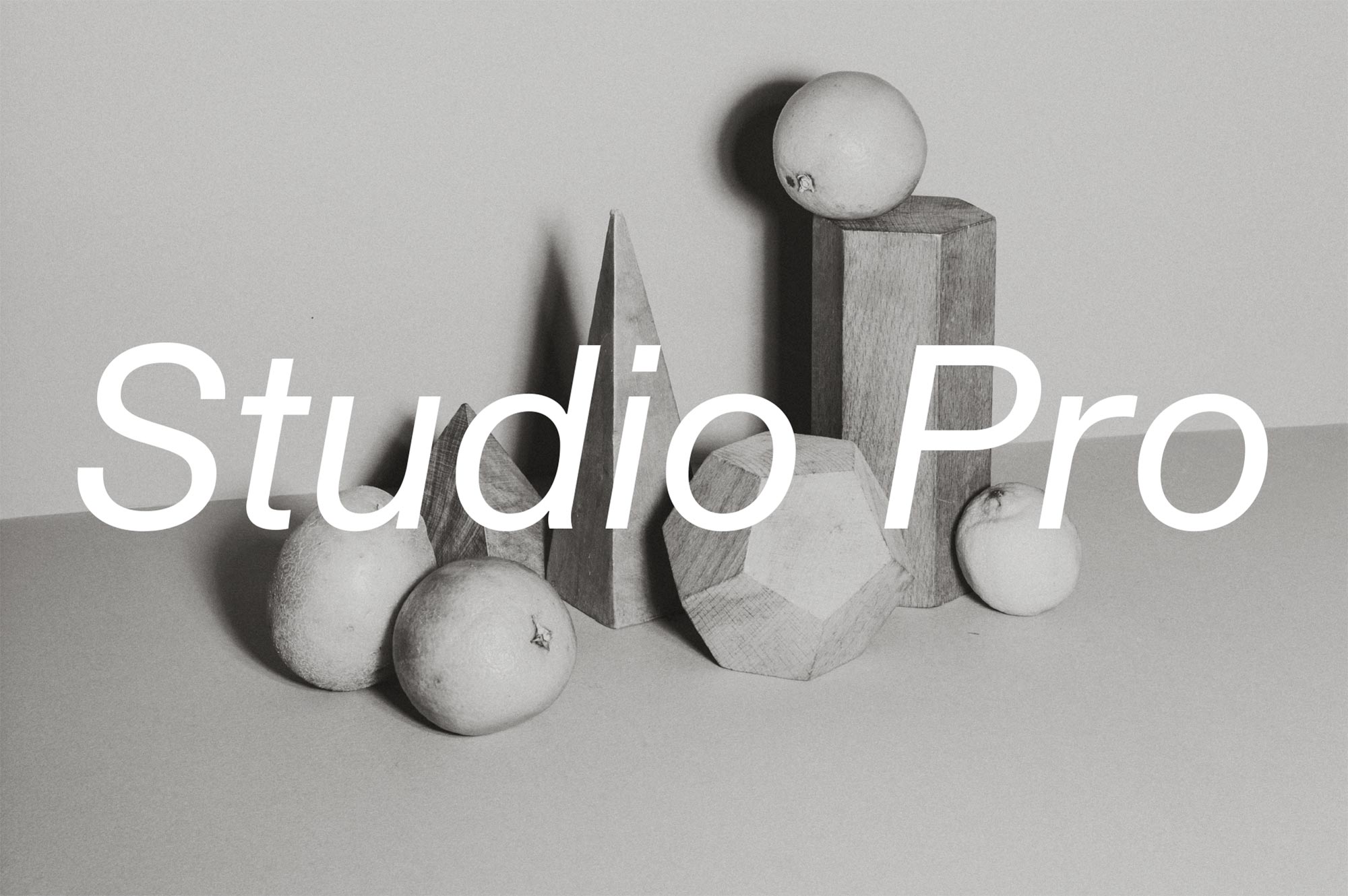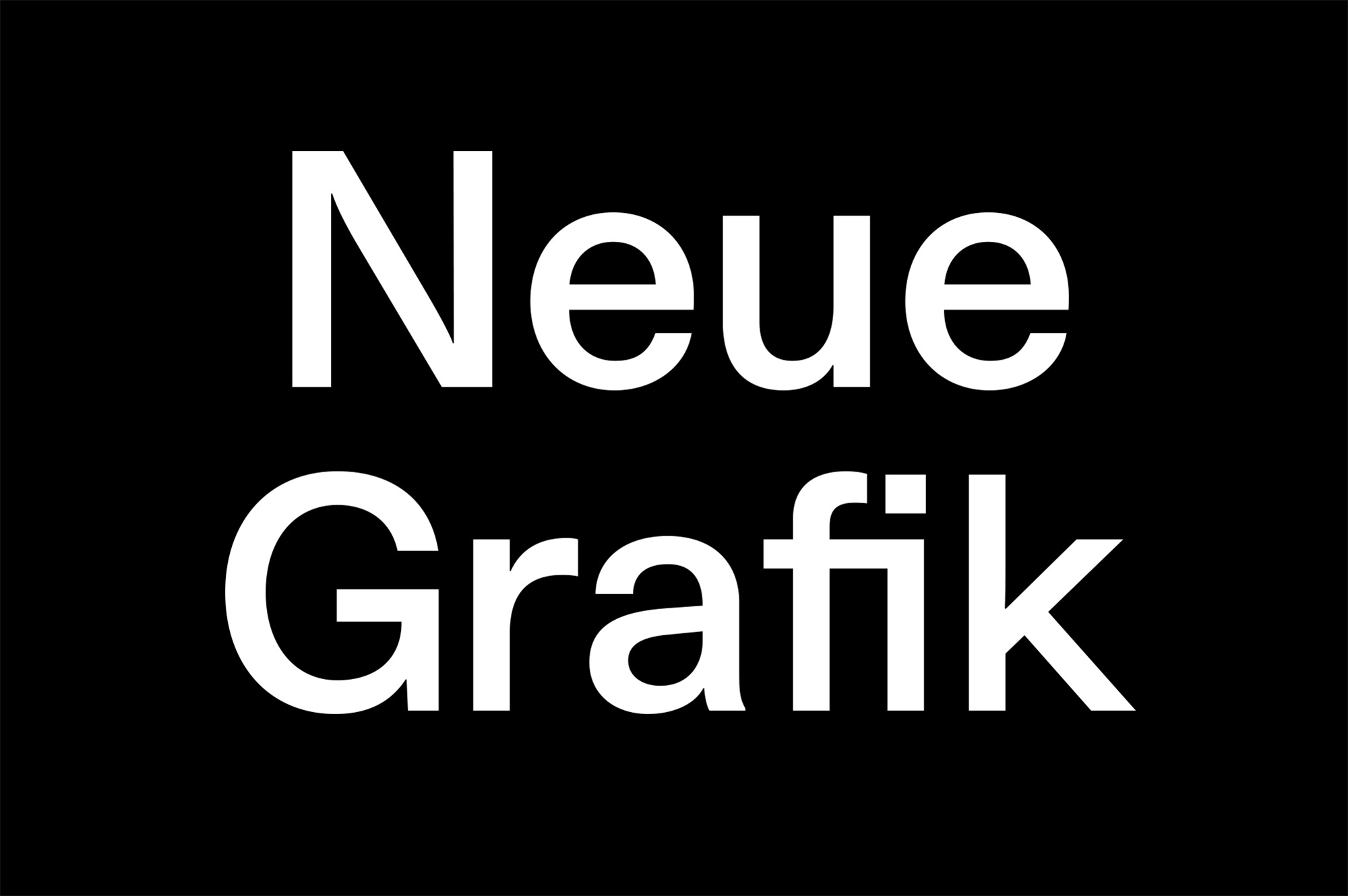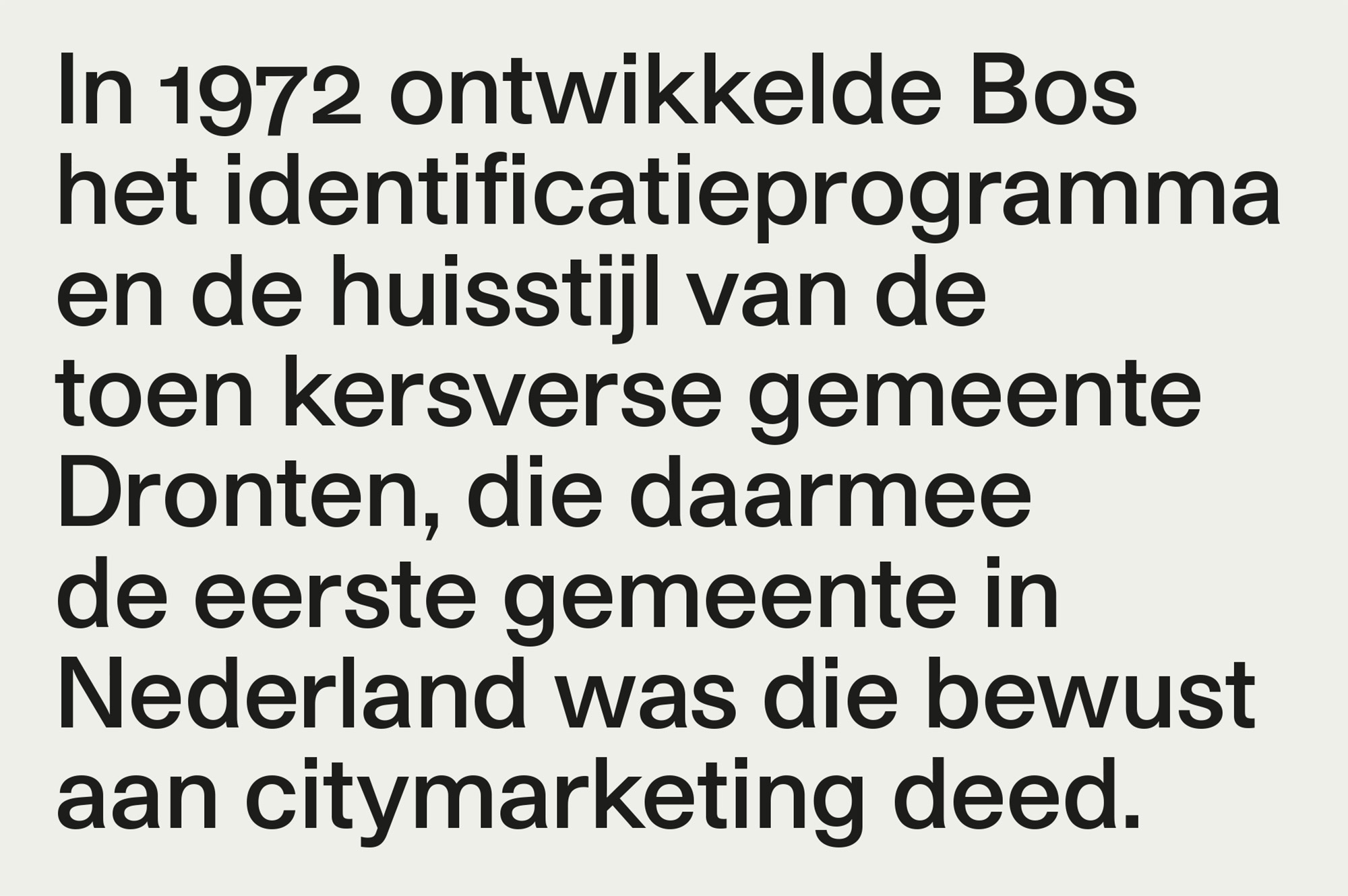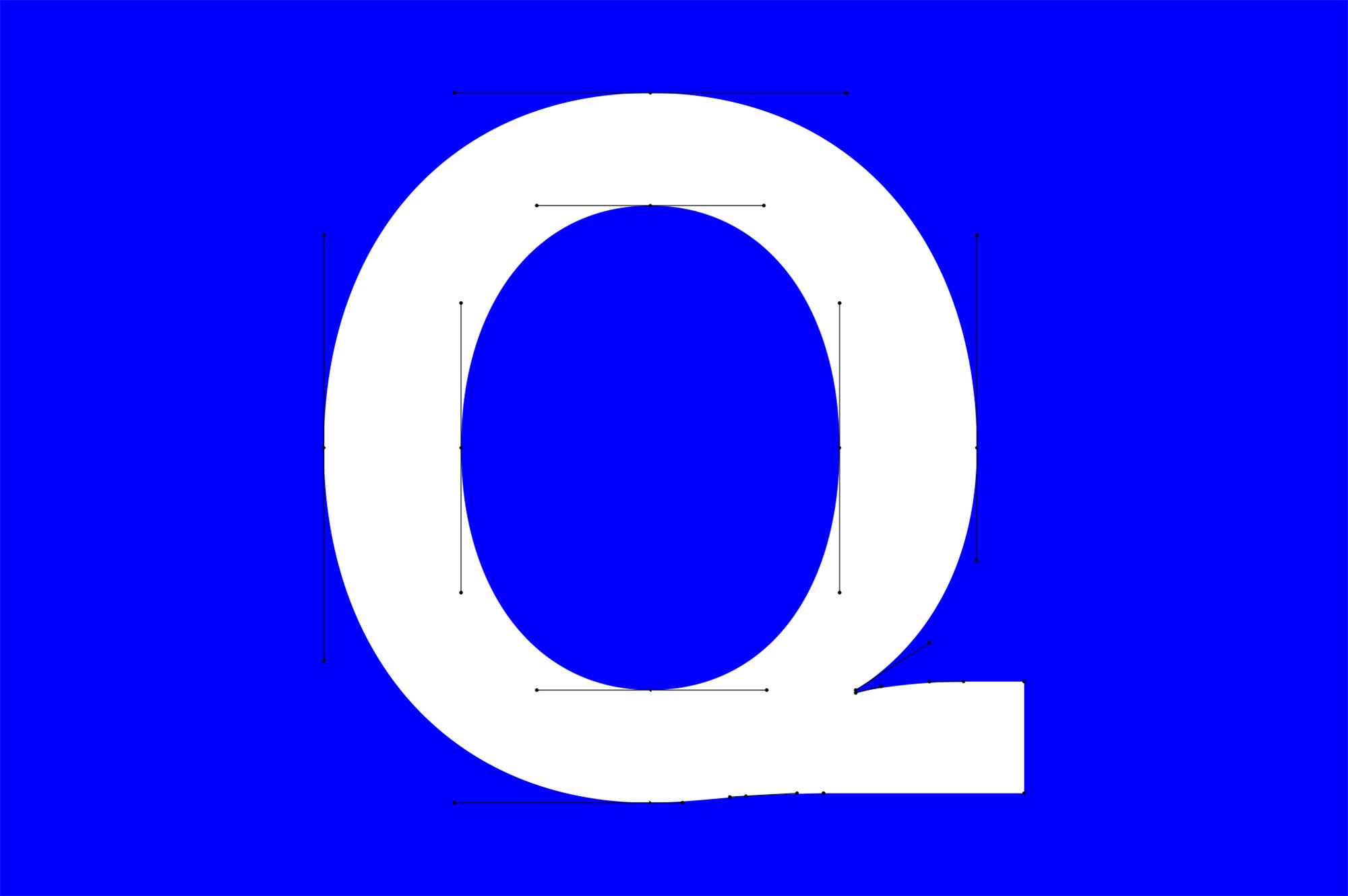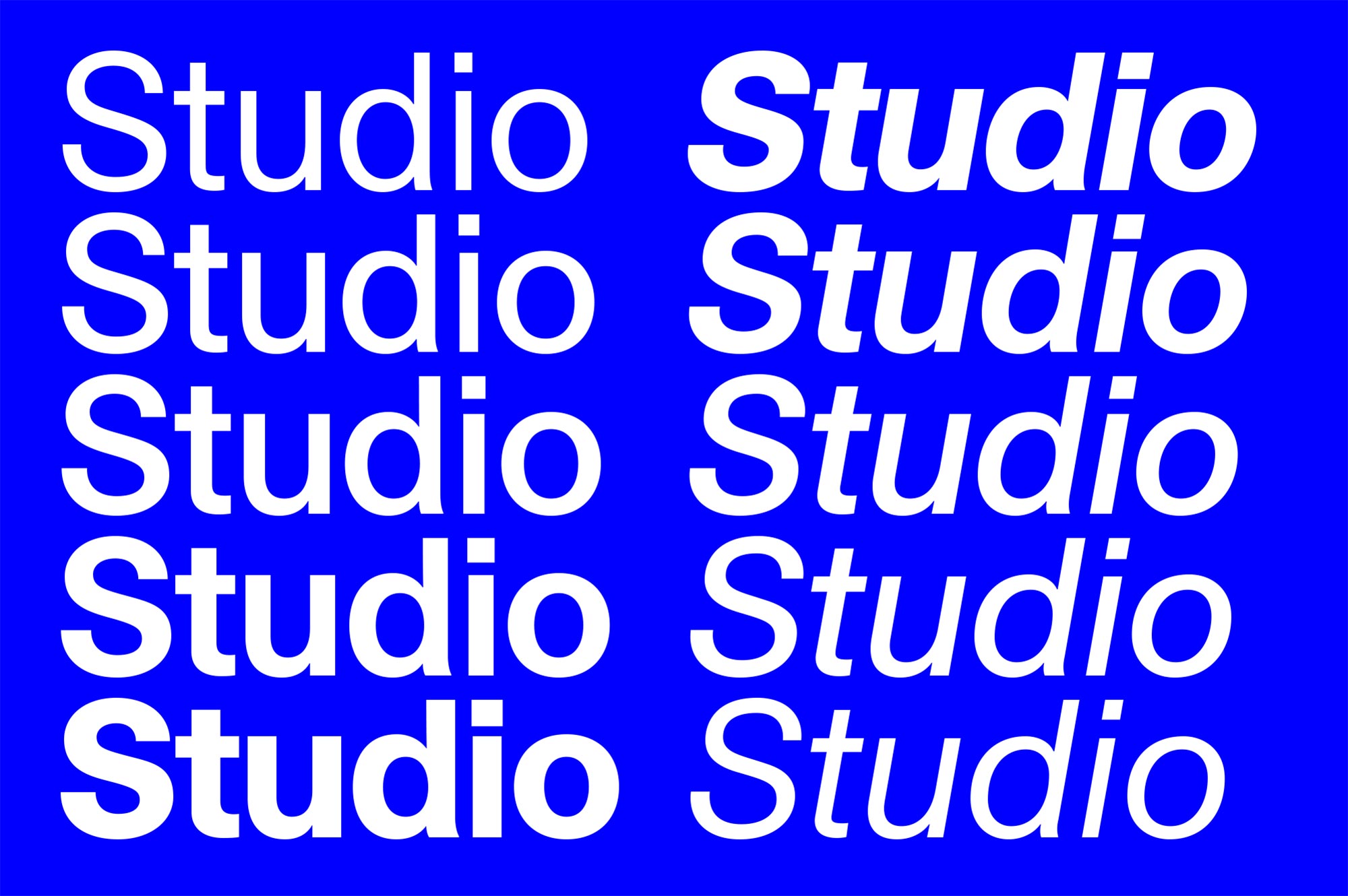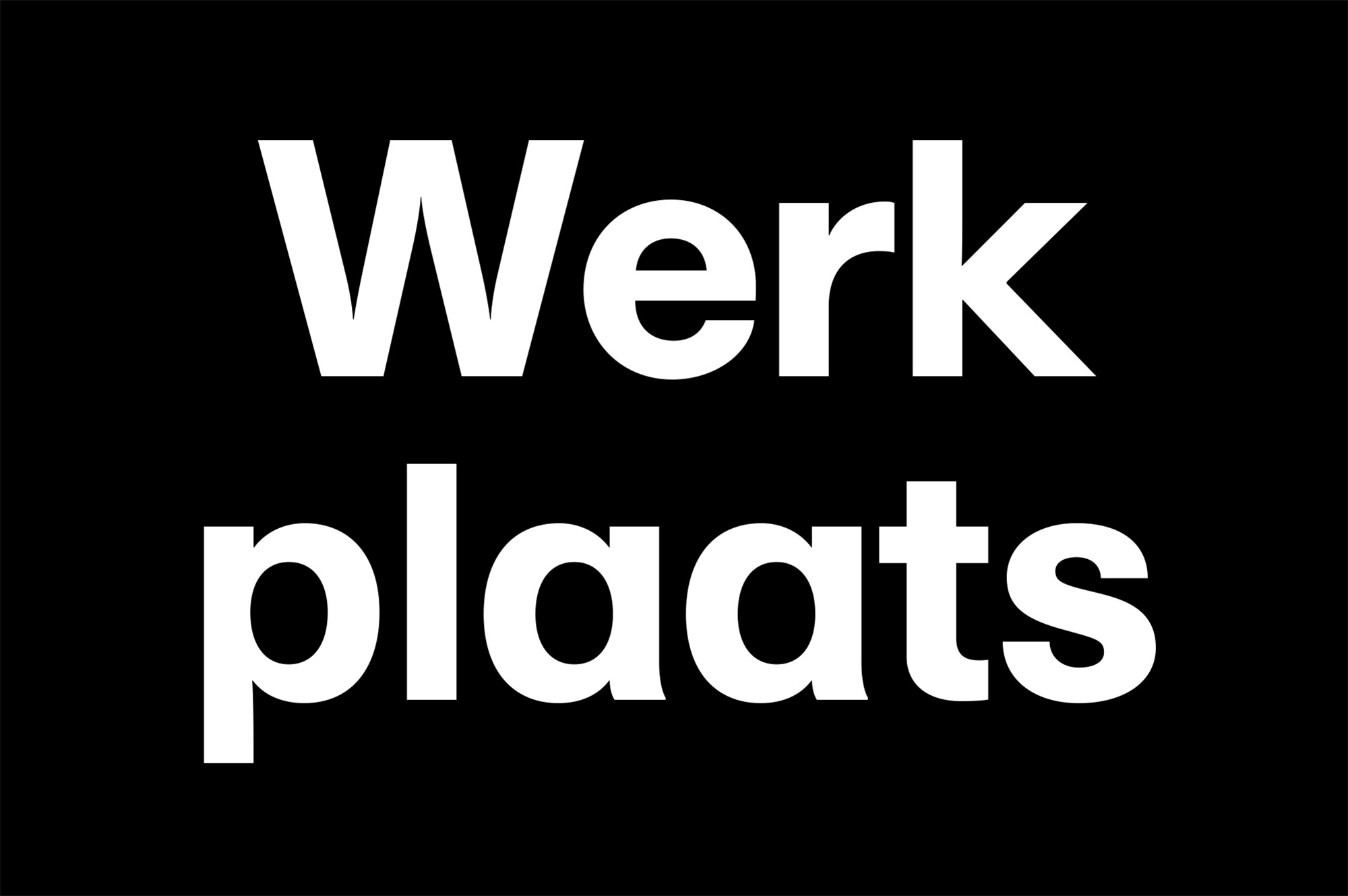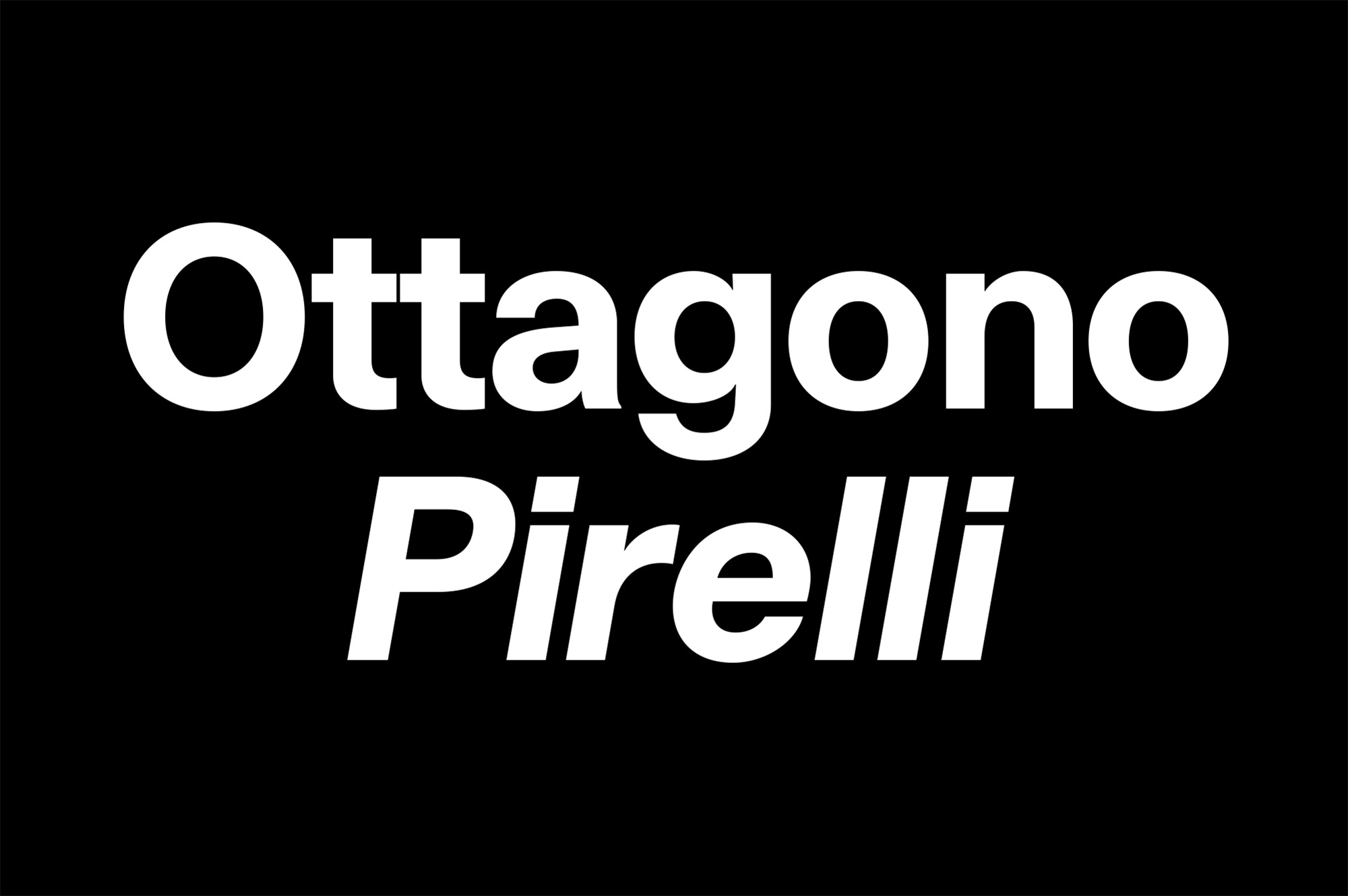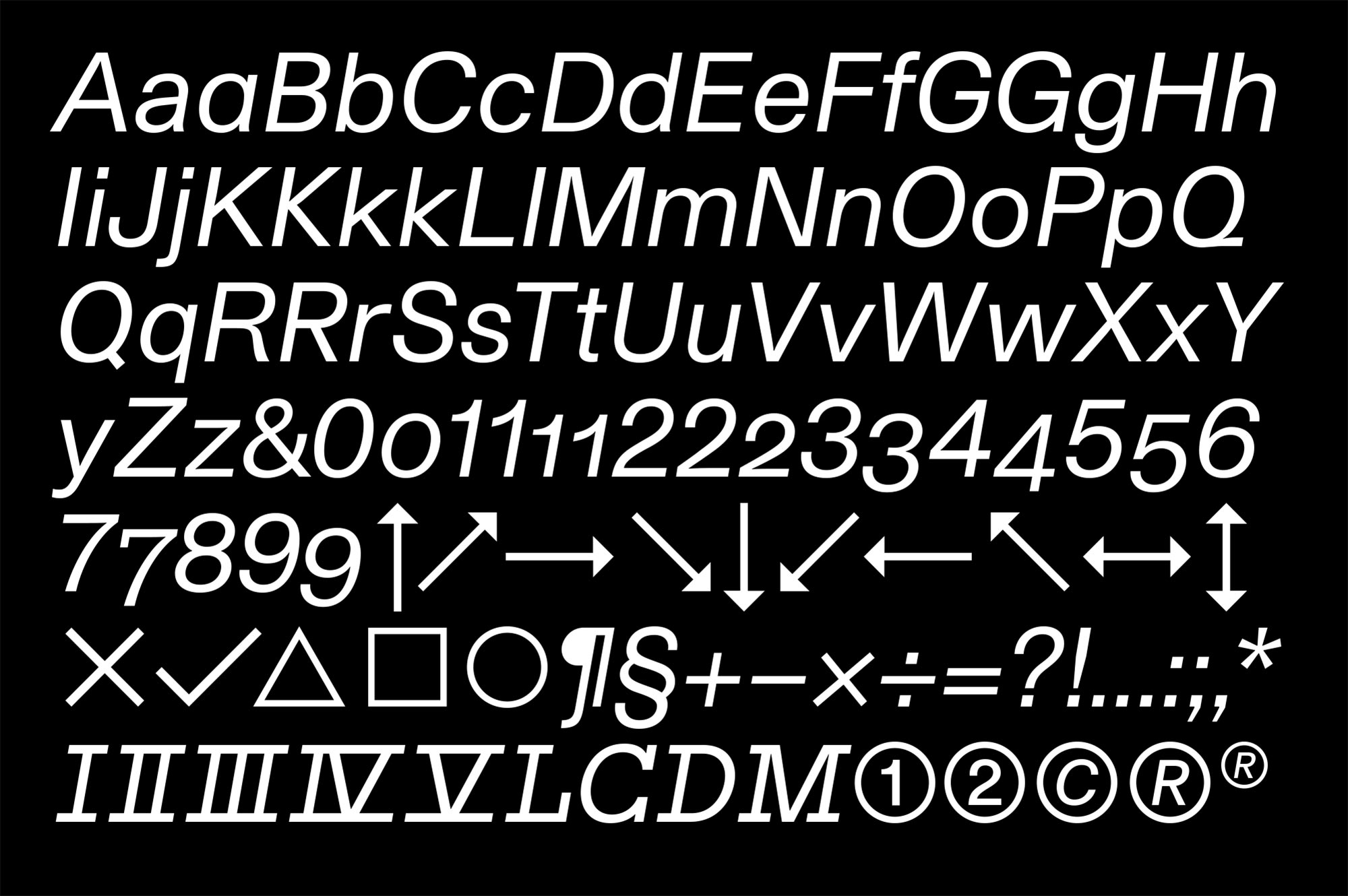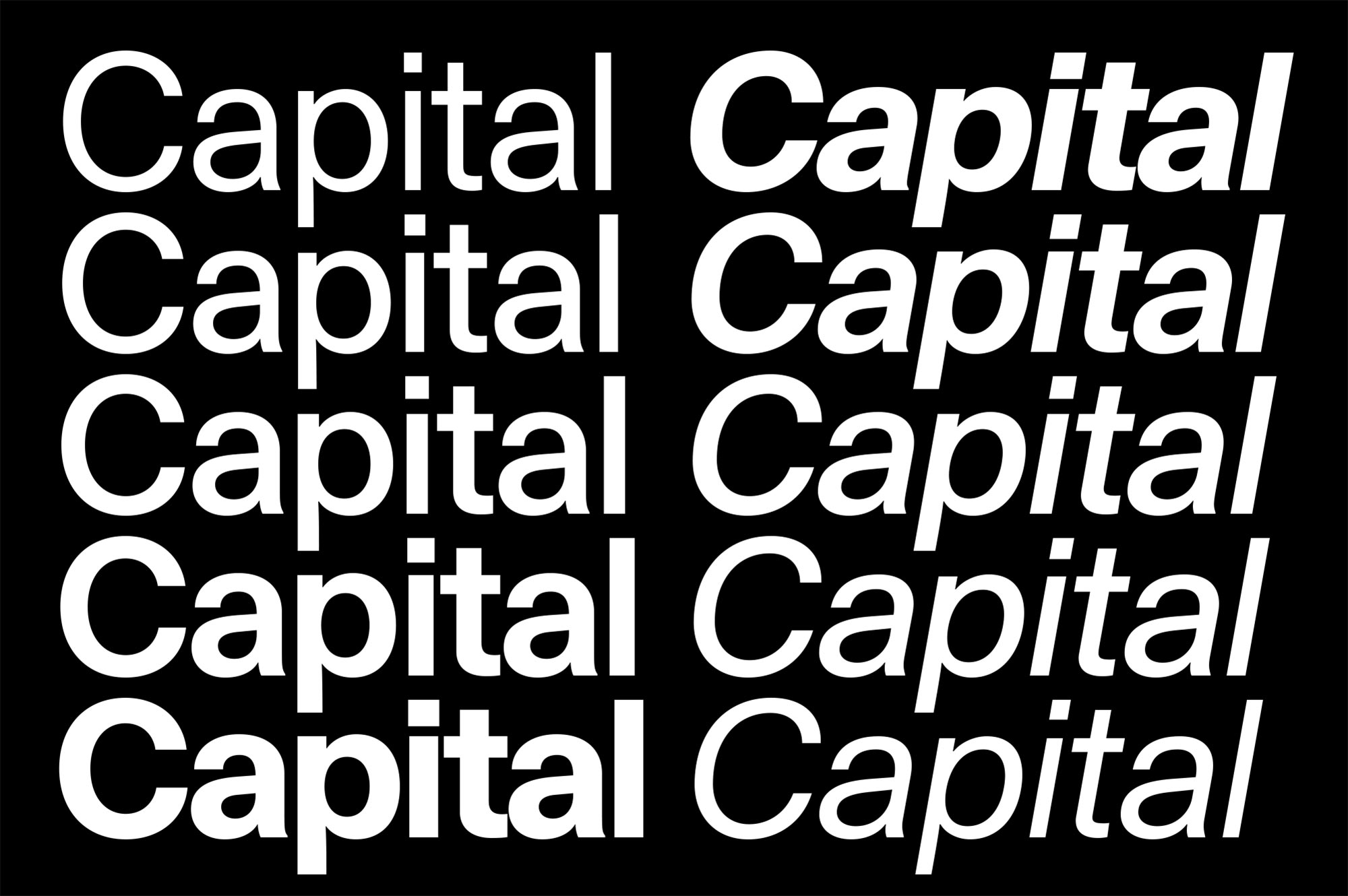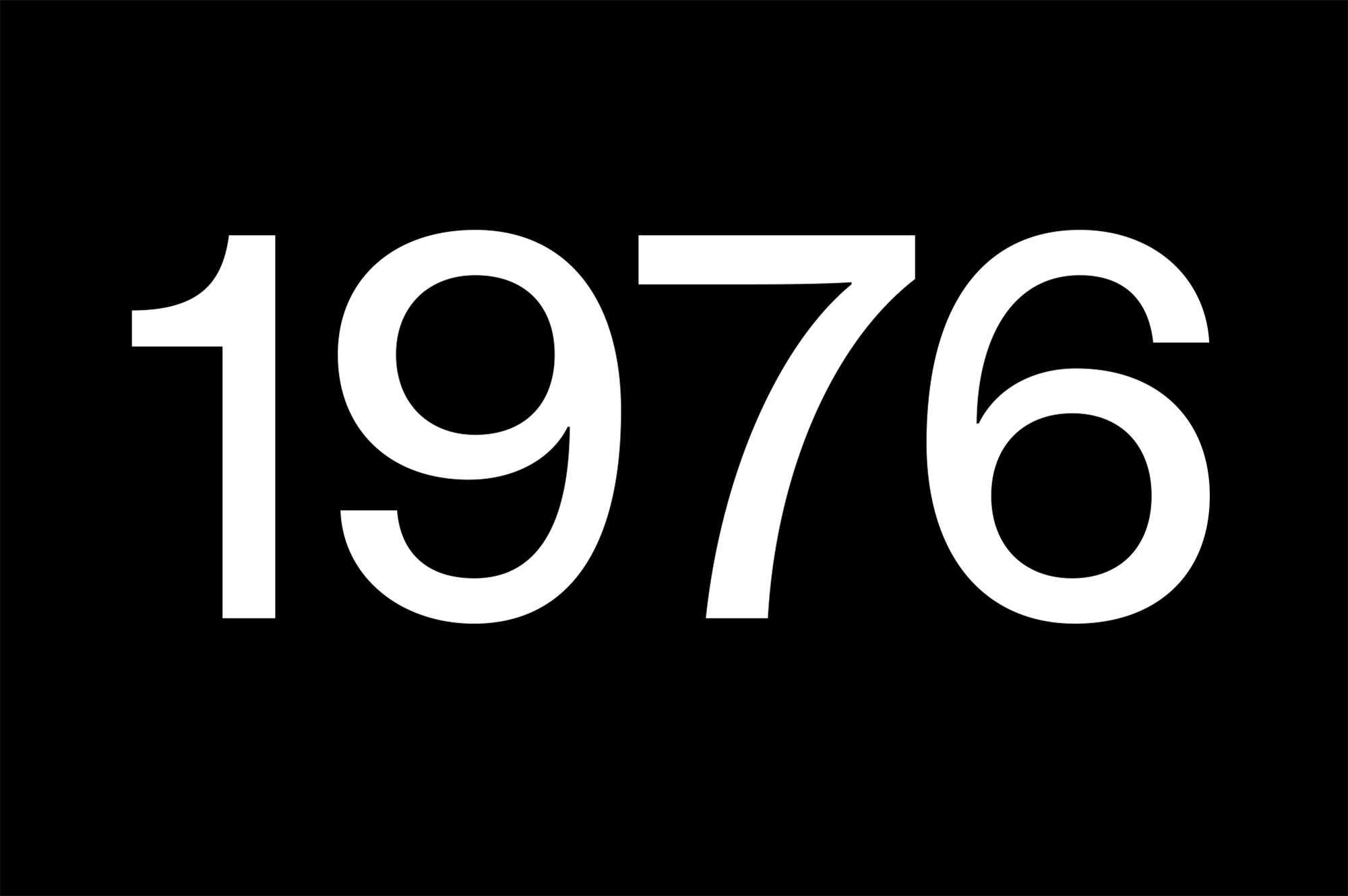
Studio Pro Font Family
Studio Pro is a sans-serif font based on the research done during 60’s and 70’s by European type designers. They examined the two most important sans serif typefaces at that time with the aim to renew them and to work out a new proposal of forms with proper optical and rhythmical corrections.